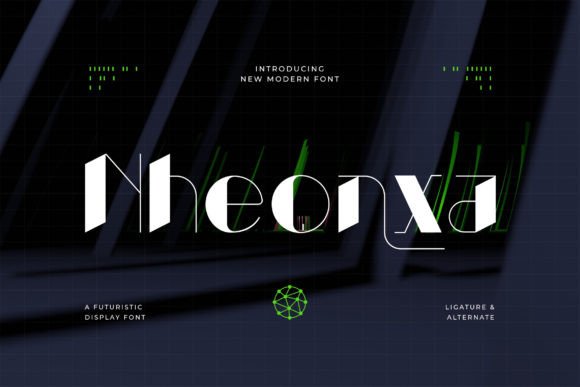
Journey into the realm of digital aesthetics with Nheonxa Font, a creation of TypeFactory that's destined to redefine your visual expressions. This display font family embodies the essence of modernity and futurism, making it the perfect choice for crafting captivating app titles, igniting imaginations, and embarking on interstellar adventures.
Unleash your creativity and let Nheonxa Font propel your designs to new heights. Its sleek and sophisticated curves evoke a sense of sleekness and innovation, while its sharp angles inject a touch of dynamism and intrigue. Whether you're crafting logos, branding materials, or user interfaces, Nheonxa Font will leave an indelible mark on your audience, leaving them captivated and yearning for more.
Immerse yourself in the world of gaming and let Nheonxa Font transport you to uncharted territories. Its bold and striking characters will command attention and set the tone for epic battles, daring quests, and otherworldly encounters. Nheonxa Font is your gateway to creating immersive experiences that will keep players engaged and enthralled from start to finish.
Venture into the realm of science fiction and let Nheonxa Font fuel your imagination. Its futuristic aesthetic will effortlessly evoke images of distant galaxies, advanced technologies, and unexplored frontiers. Nheonxa Font will breathe life into your sci-fi creations, capturing the essence of wonder, mystery, and limitless possibilities.
Embark on a grand space adventure with Nheonxa Font as your trusty companion. Its sharp and angular strokes will evoke the vastness and majesty of the cosmos, while its sleek curves will hint at the elegance and harmony that exists among the stars. Nheonxa Font will elevate your space-themed designs, transporting your audience to worlds beyond their wildest dreams.
Nheonxa Font: The ultimate font for visionaries, innovators, and those who dare to dream. Its modern and futuristic design will transform your creative projects into captivating masterpieces, leaving a lasting impression on your audience. Download Nheonxa Font today and unlock a world of endless possibilities.